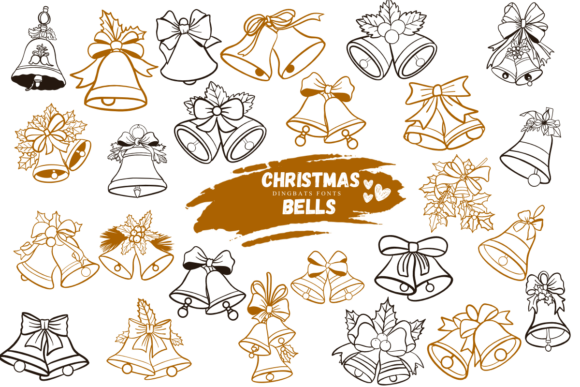
The Sound of Festivity: Unwrapping the Magic of Christmas Bells Font
It’s that time of the year when creativity knows no bounds, and the air is filled with the sweet sound of jingling bells. As you sit by the fireplace, sipping hot cocoa and brainstorming ideas for your holiday projects, you can’t help but feel a rush of excitement. The festive atmosphere is the perfect catalyst for unleashing your creativity, and what better way to add a touch of magic to your designs than with the Christmas Bells Font?
This delightful dingbat font is a treasure trove of decorative illustrations of Christmas bells, designed to bring a smile to the faces of your audience. With its playful charm, the Christmas Bells Font is a valuable asset for designers looking to infuse their holiday projects with a sense of joy and festivity. Whether you’re creating greeting cards, posters, or social media graphics, this font is sure to be the perfect addition to your design arsenal.
- Font Family: Christmas Bells is a unique, hand-drawn font designed to evoke the spirit of Christmas.
- Unique Characteristics: The font features intricate, swirling patterns and ornaments, making it perfect for holiday-themed designs, invitations, and greeting cards.
Christmas Bells Font Review
Overall, I think the Christmas Bells Font is a great addition to any holiday-themed project. It’s got a unique, whimsical feel that’s perfect for festive designs. ✨
The font’s versatility shines through in its multiple weights, from light to bold, making it suitable for various design applications. The font’s curves and lines evoke a sense of nostalgia and playfulness, which I think many designers will appreciate. ✨
Some of the font’s best features include:
- Beautiful, intricate details in the ornaments and decorations
- A wide range of use cases, from headings to body text
- Easy to read, even in smaller sizes
However, I do have a few concerns:
- ⚠️ Limited language support, which may be a problem for non-English designs
- ⚠️ Some characters may not display correctly on certain systems
Despite these limitations, I think the Christmas Bells Font is a great choice for designers looking to add some holiday cheer to their projects. With a little creativity and planning, you can work around its limitations and create some truly magical designs. Overall, I’d give it 4 out of 5 stars.